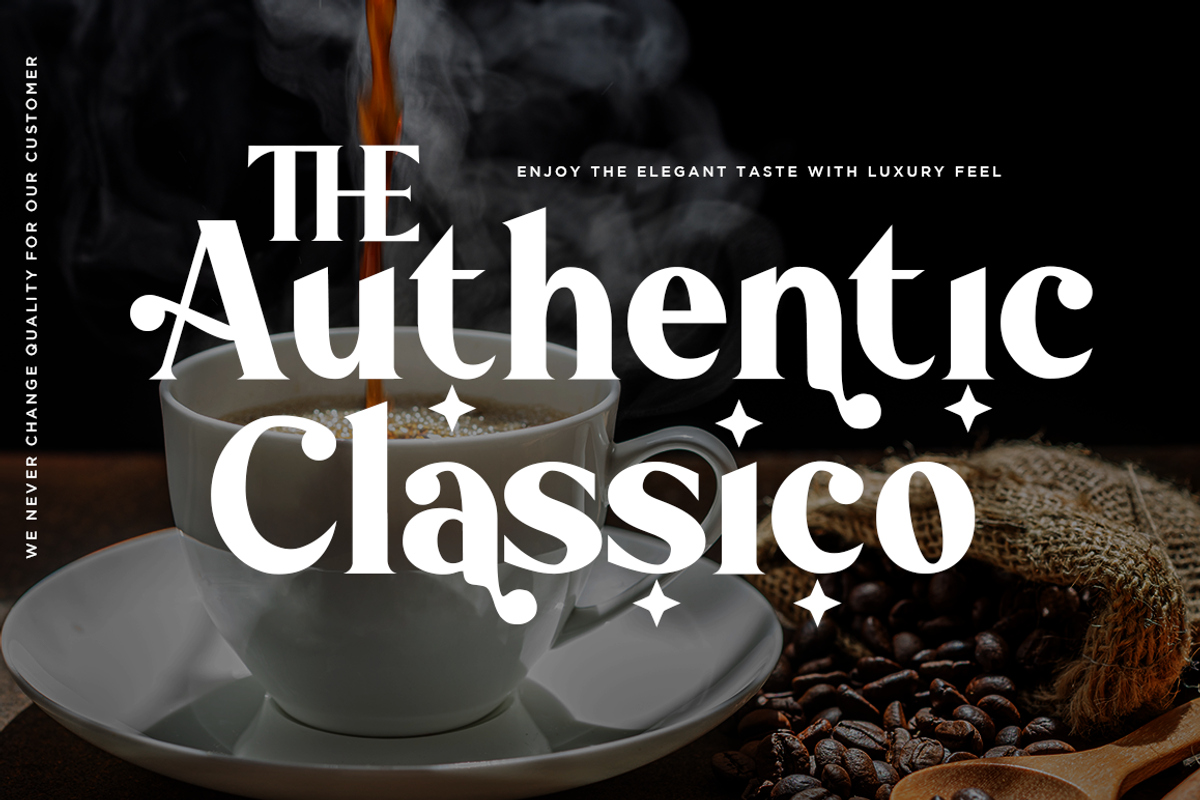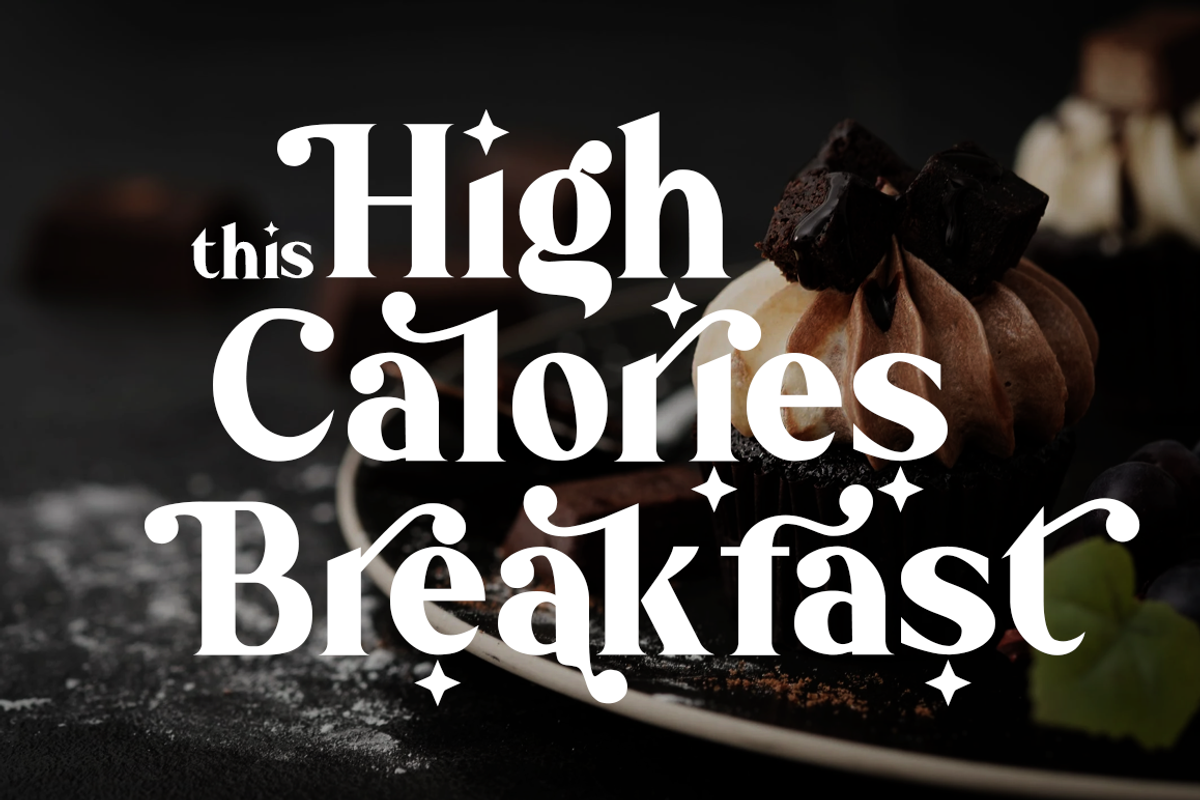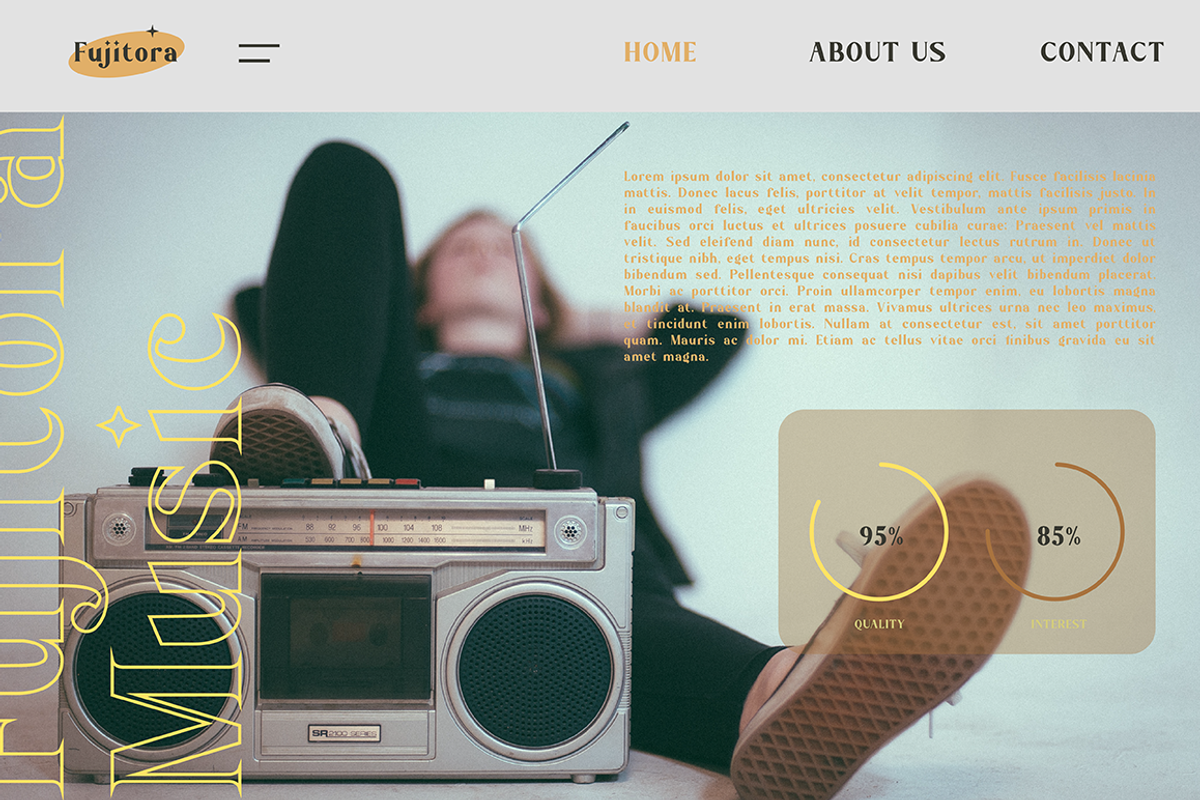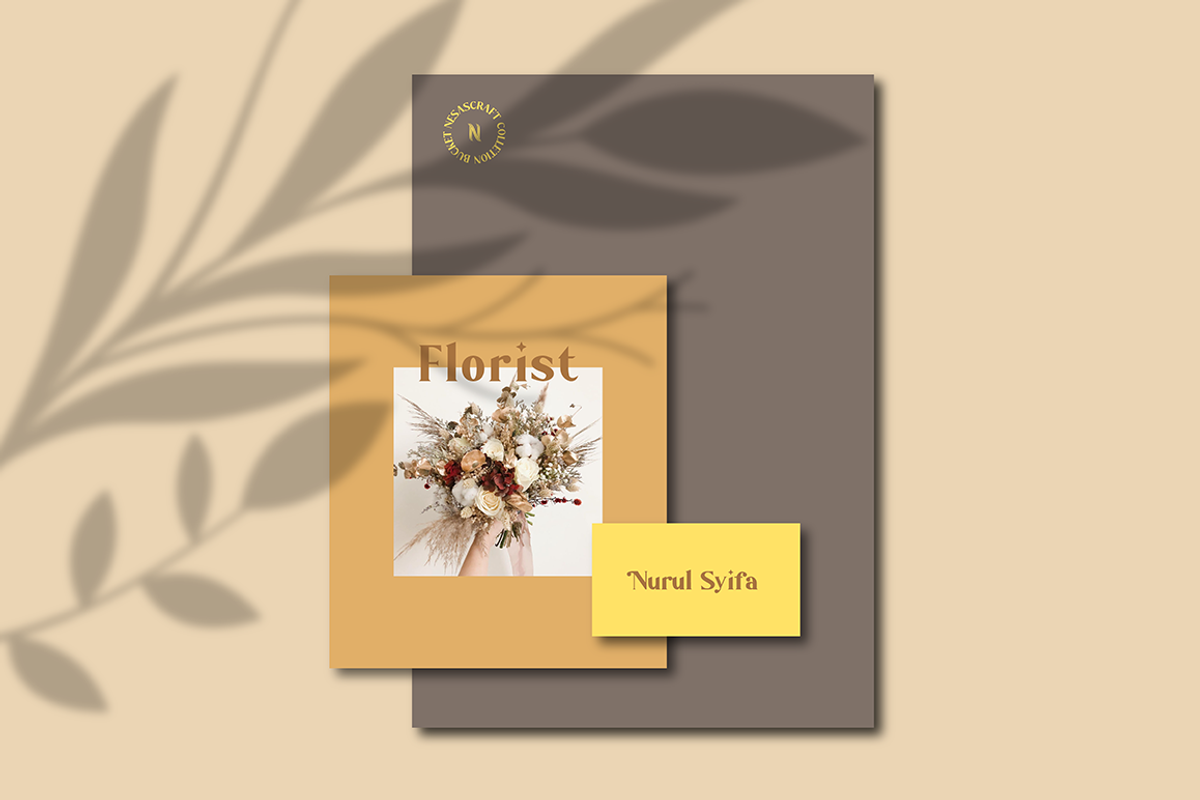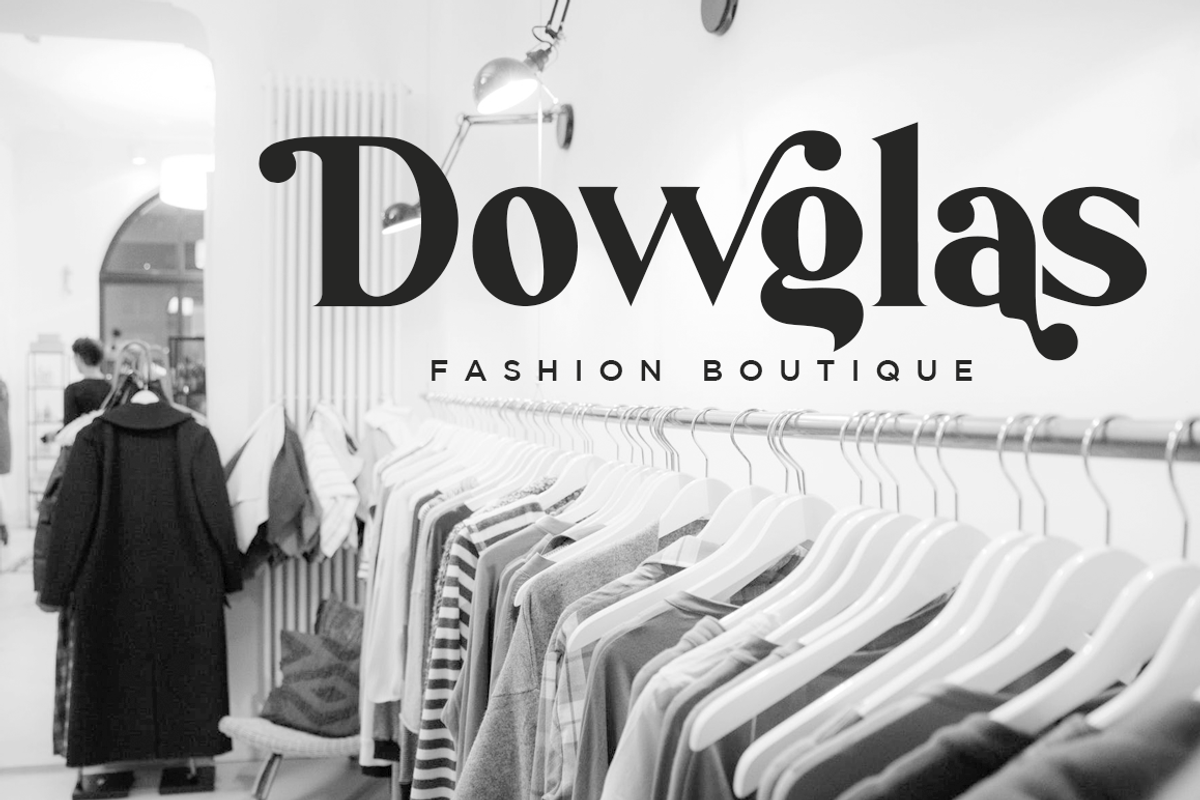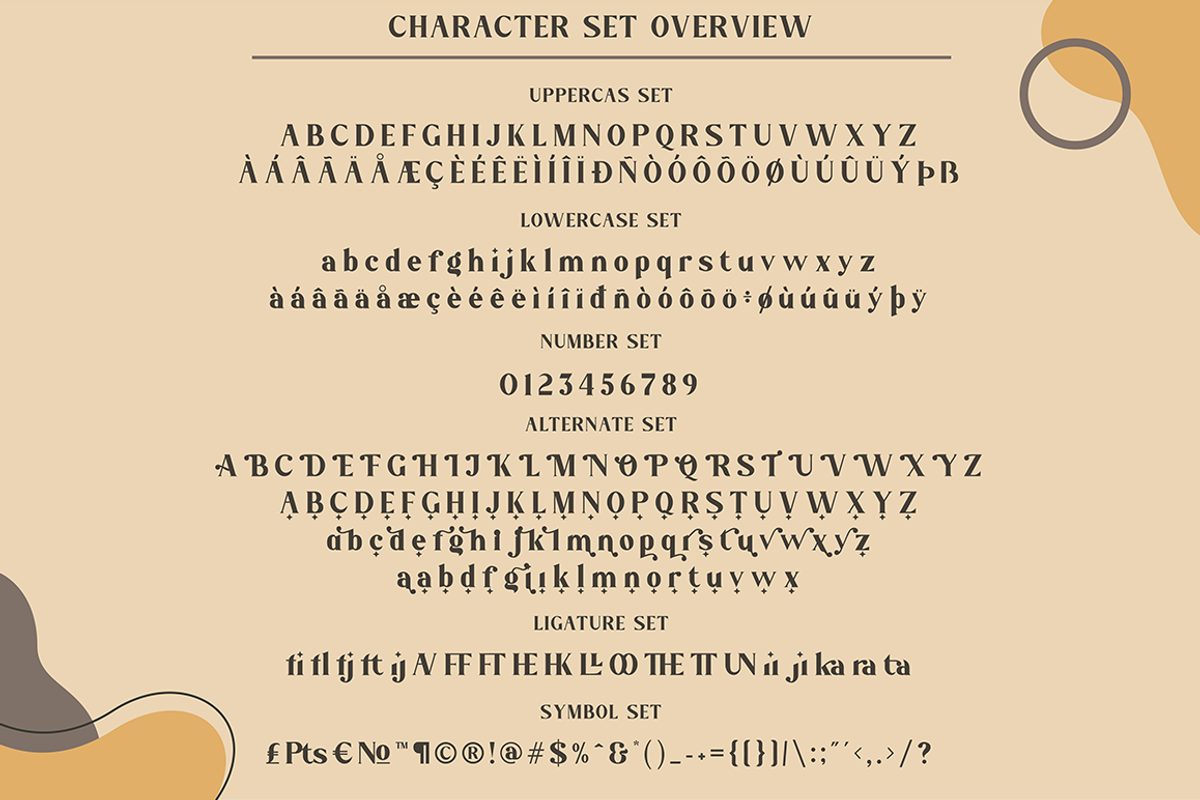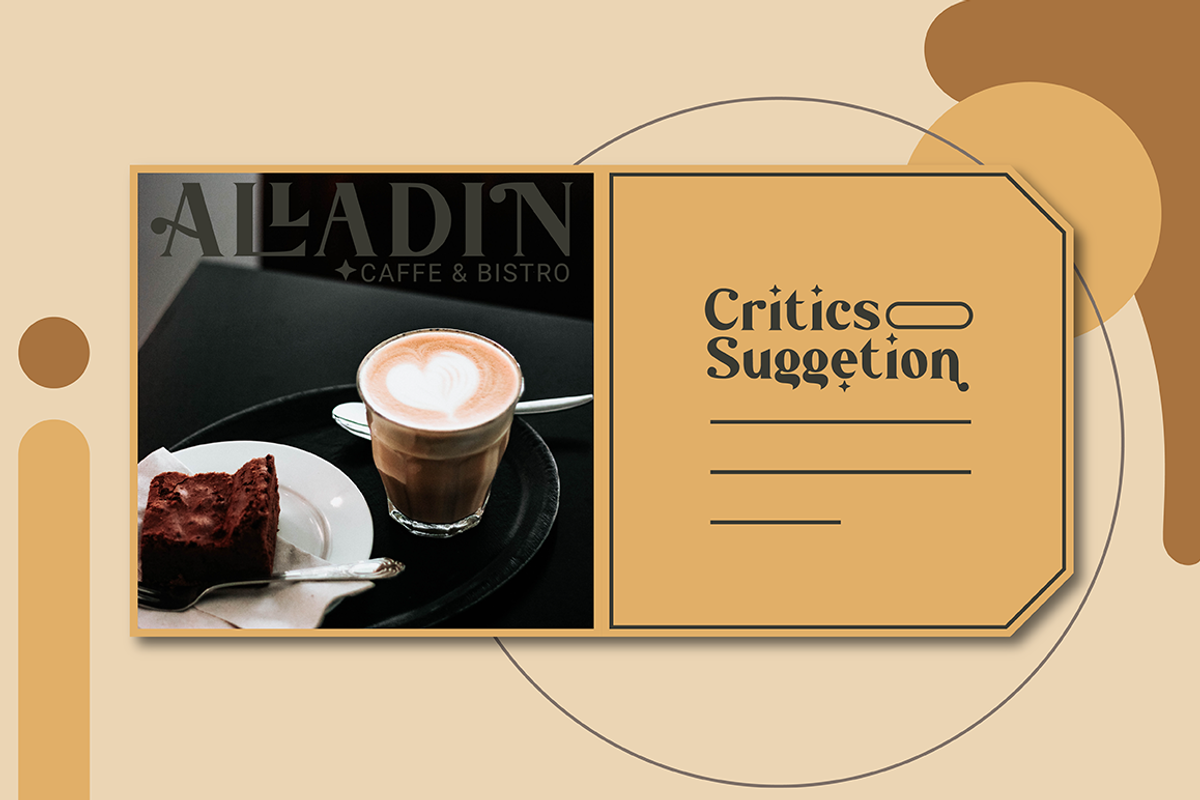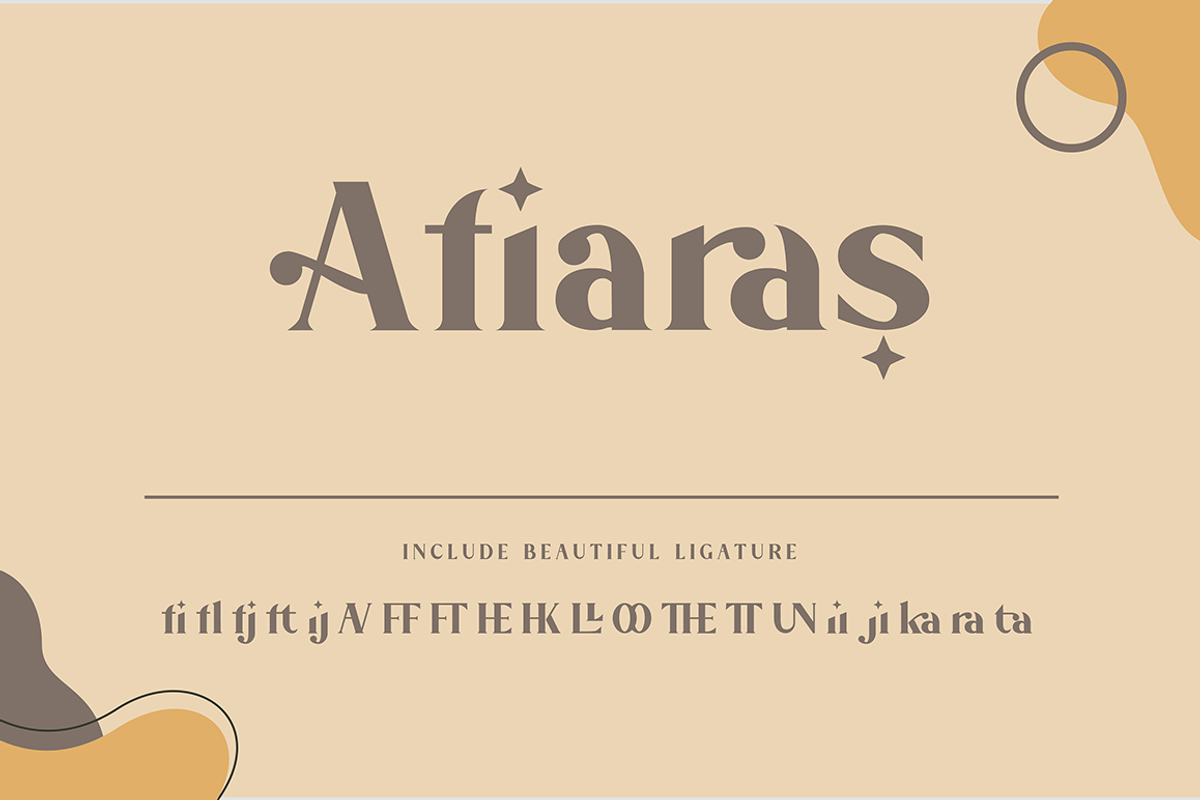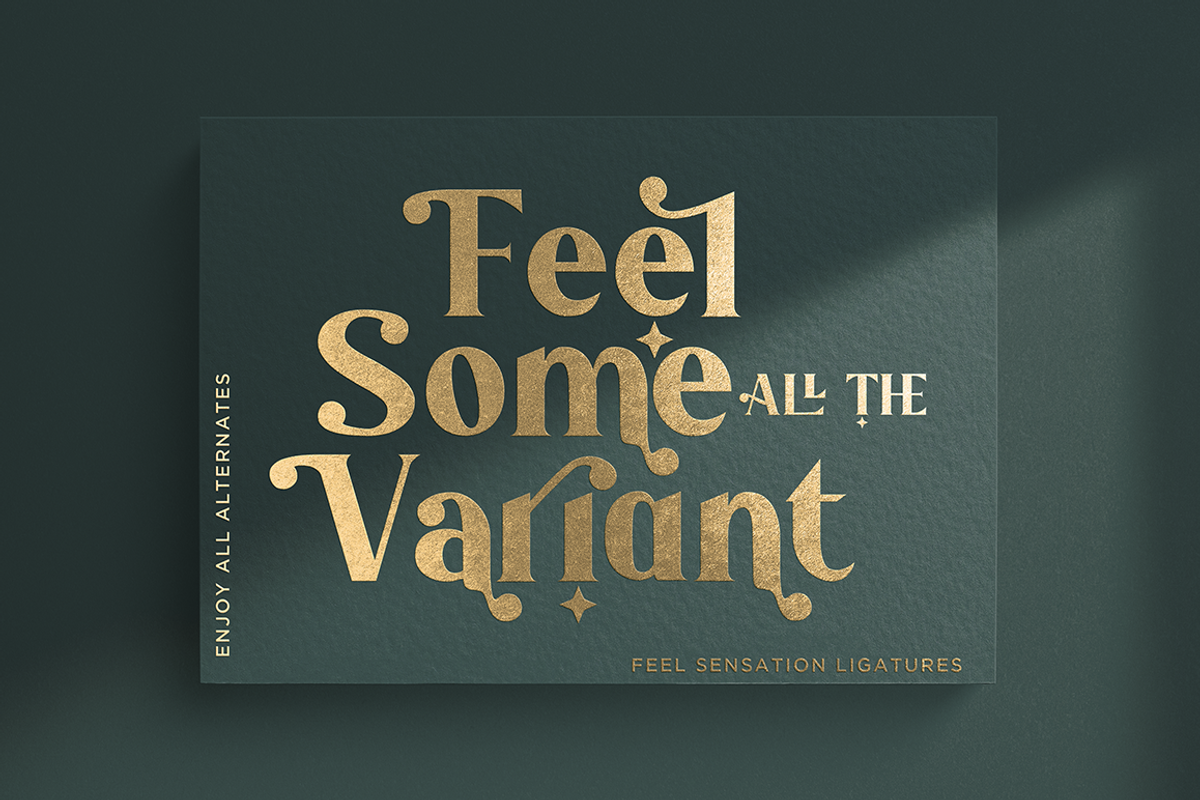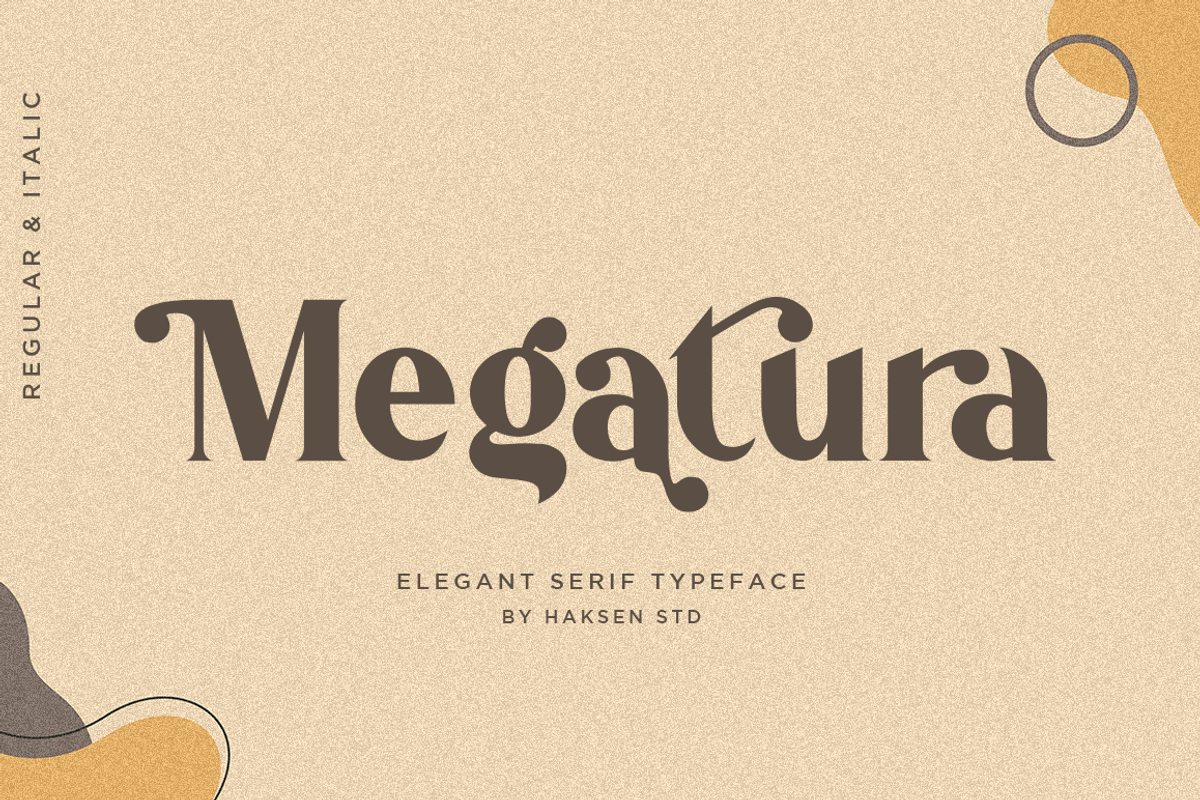
Megatura // Elegant Serif Typeface
Megatura is a Bold elegant modern vintage with upper and lowercase feel nice balanced curves. This font is inspired by lettering from couple of the good talent artist, but it still has a strong modern appearance. Its wide range of stylistic alternates allows versatile design options and works perfectly for headlines, logos, posters, packaging, T-shirts, postcards and much more.
- Regular and Italic version
- Character set A-Z
- Stylistic Alternates & Ligatures
- Accented Characters
- Multiple Languages Supported